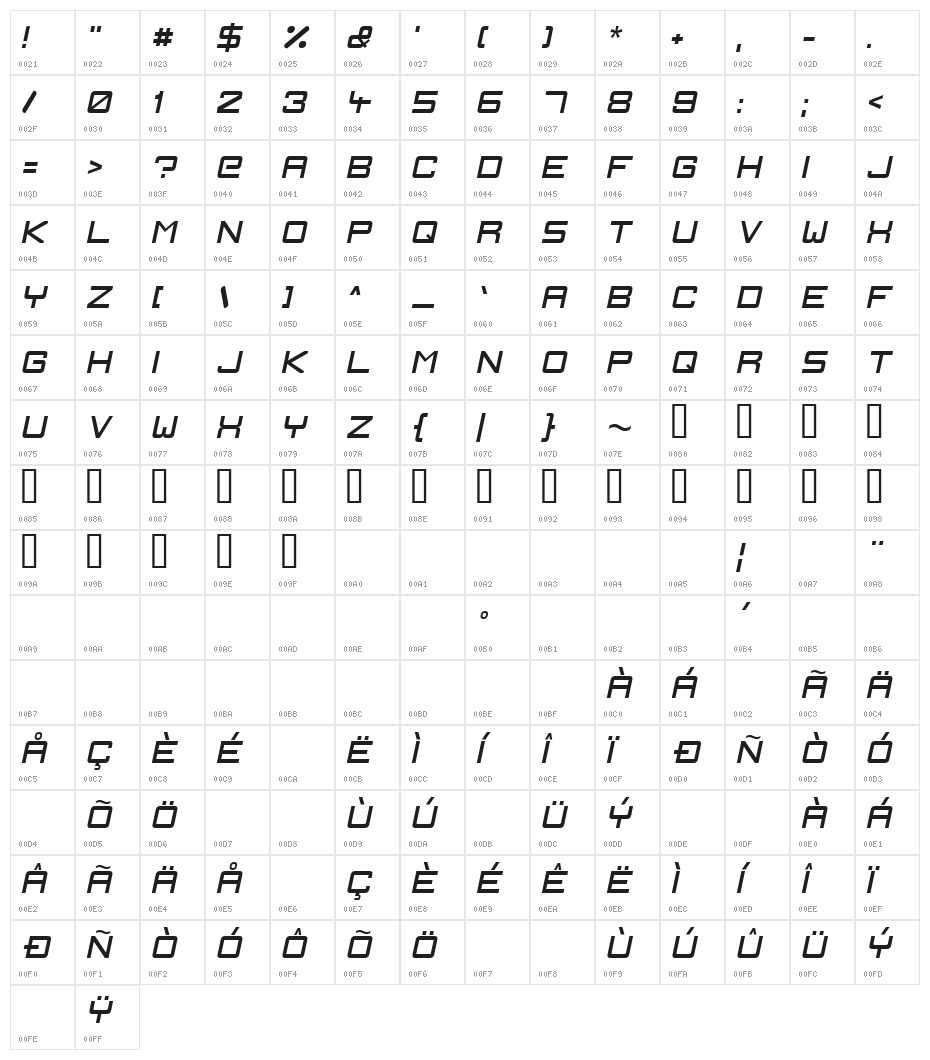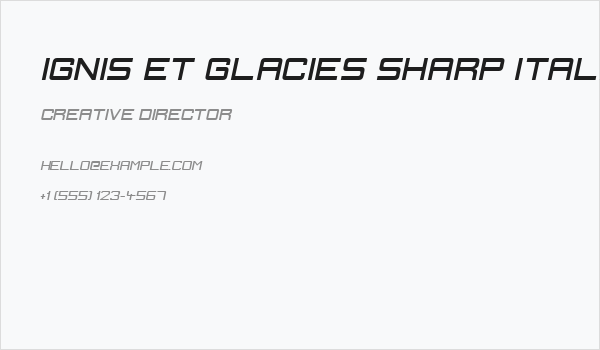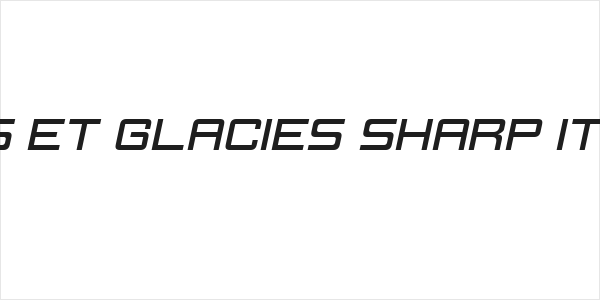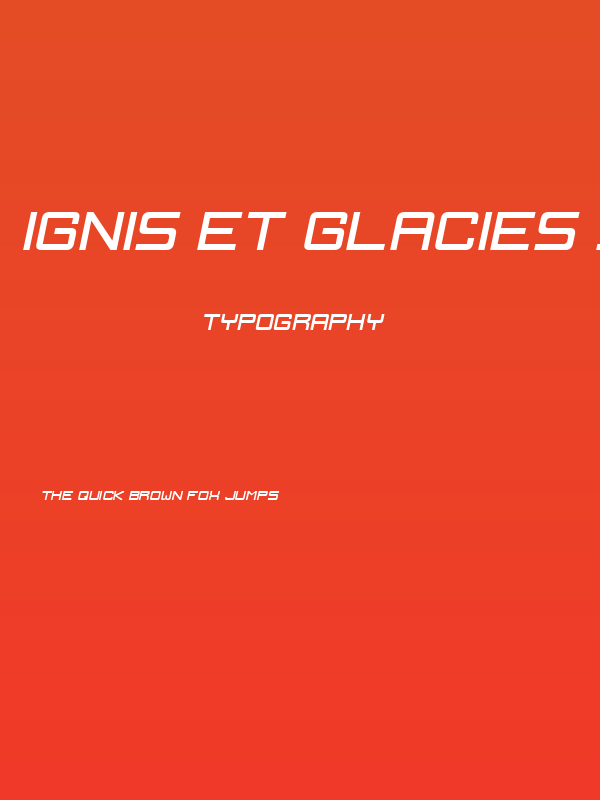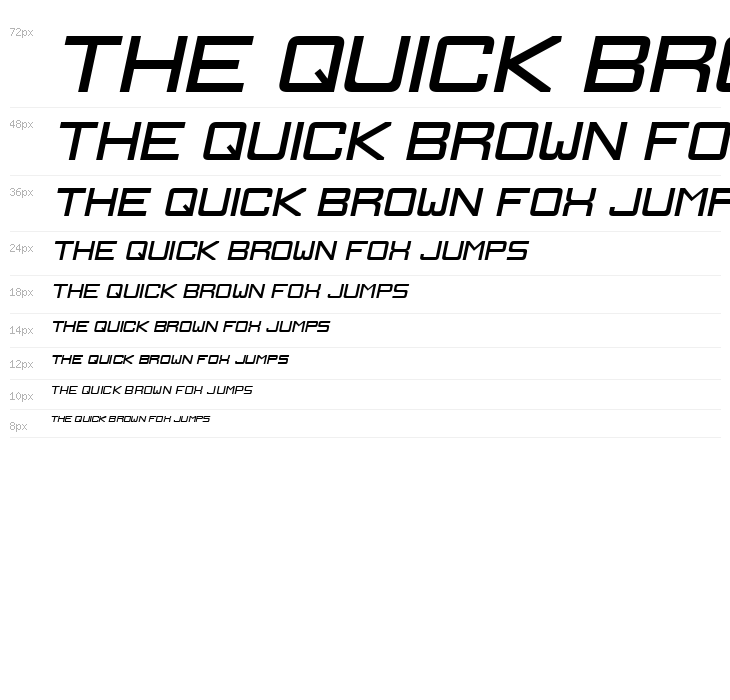
Ignis et Glacies Sharp Italic Font
Ignis et Glacies Sharp Italic Description
This font features a sleek, angular design with a futuristic flair. Its sharp edges and italicized form give it a dynamic and energetic appearance, making it stand out in any design. The uppercase and lowercase letters maintain a consistent style, with a slight slant that adds to its modern aesthetic. The numerals and special characters are crafted with the same attention to detail, ensuring uniformity across all elements. The font's geometric shapes and clean lines make it suitable for projects that require a contemporary and edgy look.
| Proposed Projects | Ideal for technology branding, sci-fi posters, modern logos, and digital interfaces. |